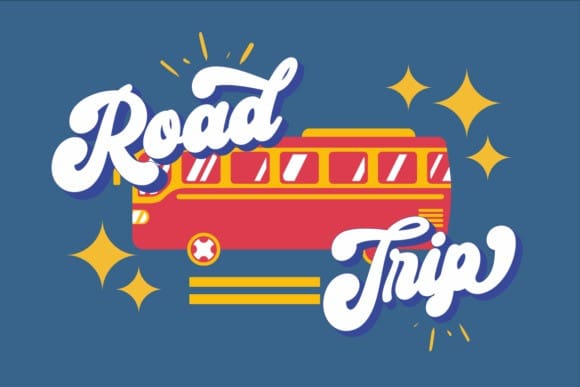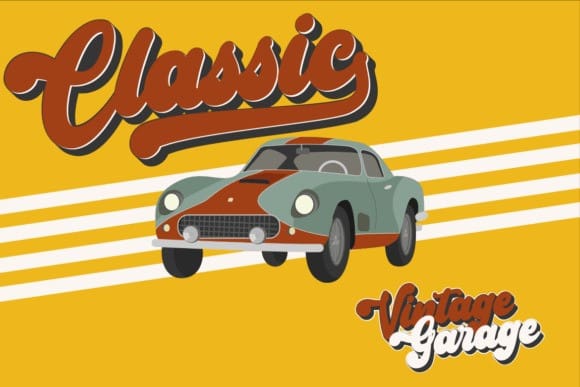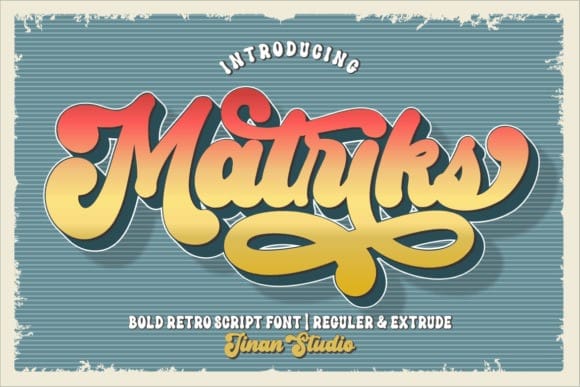
Matriks Retro Font
Matriks Retro Font, is a retro and bold handwritten font perfect for a wide spectrum of applications such as greeting cards, headlines, magazines, logos, and many more! Add it confidently to your projects, and you will love the results.